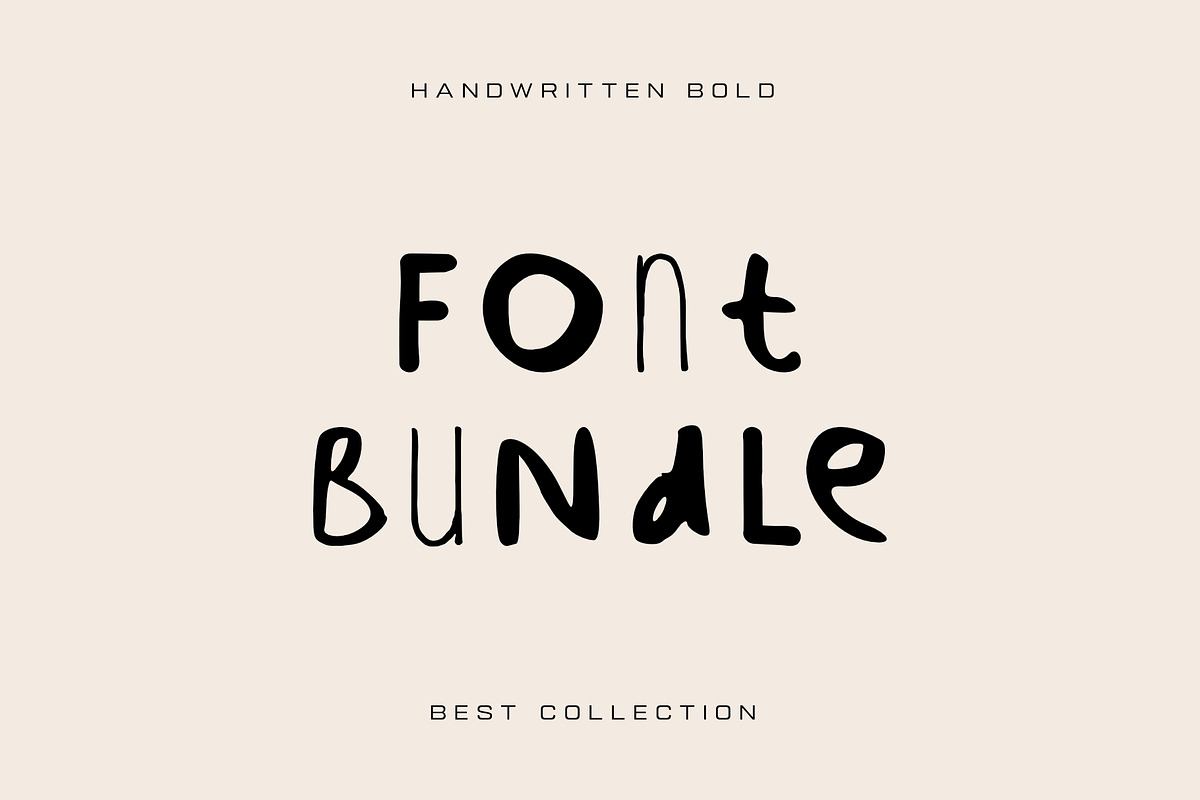
Handwritten bold fonts bundle Free Download
Handwritten Bold Fonts Bundle Free Download
Handwritten Bold Fonts Bundle Free Download is an extensive collection of bold and expressive handwritten fonts designed to add personality, energy, and character to your designs. With a mix of different handwritten styles, this bundle is perfect for a wide range of projects, from custom logos and branding to posters, invitations, and social media graphics. Each font in the bundle offers a unique look with a bold, playful flair.
Using the Handwritten Bold Fonts Bundle Free Download gives you a wide variety of bold, handcrafted typefaces to elevate your typography. Whether you need an energetic font for a promotional campaign, a unique handwritten logo, or dynamic social media content, this bundle has you covered with multiple font options to fit any project.